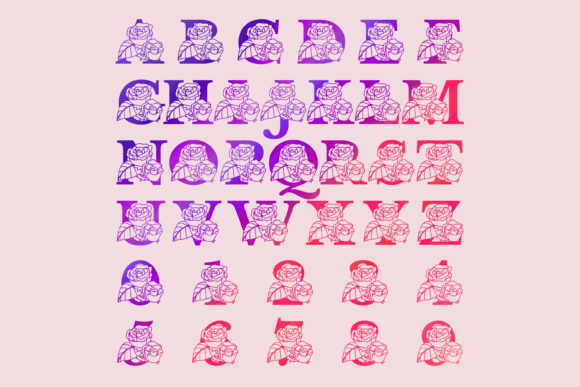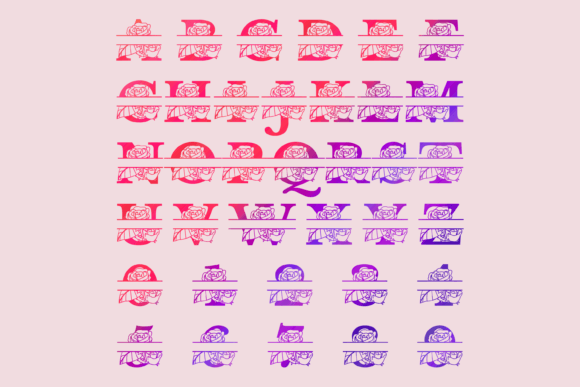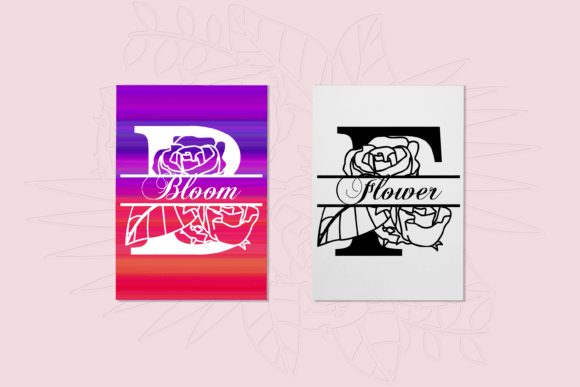
Adding a Touch of Elegance with the Blossom Split Font
As you sit at your crafting table, surrounded by scraps of paper, glue, and glitter, you’re on the hunt for the perfect finishing touch to bring your latest creation to life. You’ve got the design, the colors, and the materials, but something’s missing – a delicate flourish that will make your project truly special.
That’s where the Blossom Split Font comes in – an exquisite botanical decorative font that adds a touch of elegance to any project. With two styles to choose from, regular and split, this font is perfect for custom designs, DIY crafts, and any creation that requires a lovely touch. As a designer, you know the value of a well-chosen font in elevating your work, and the Blossom Split Font is an amazing choice for adding a unique and sophisticated flair to your projects.
- Unique Characteristics:
- Split font design with multiple layers for a unique aesthetic
- Hand-drawn and hand-painted style for a personal touch
Blossom Split Font Review
Overall, I think the Blossom Split Font is a beautiful addition to any design project. ✨ It has a playful, whimsical feel that’s perfect for spring or summer-themed designs, and its unique split design makes it stand out from other fonts.
The font’s versatility is one of its strongest points. It can be used for titles, headings, and even body text, making it a great choice for designers who want a single font to cover all their bases. ✨ The font’s open and airy feel also makes it easy to read, even at smaller sizes.
- Playful, whimsical feel that’s perfect for spring or summer-themed designs
- Unique split design that makes it stand out from other fonts
- Highly versatile and can be used for titles, headings, and body text
- Easy to read, even at smaller sizes
- May not be suitable for formal or professional designs
- Some characters may not be available in all languages
- Can be difficult to use in smaller sizes or with tight spacing
Overall, I would recommend the Blossom Split Font to designers who are looking for a fun and playful font to add some personality to their designs. However, it may not be the best choice for every project, and designers should be aware of its limitations. ⚠️
Tips for Getting the Most Out of the Blossom Split Font
The Blossom Split Font is perfect for creating whimsical and playful designs. To get the most out of it, try combining it with pastel colors and delicate illustrations.
Alternatives to Blossom Split Font
Blossom Split Font is a unique, elegant font that has gained popularity in recent years. However, there are several other fonts that can be used as alternatives, depending on the design requirements.
Great Vibes is a modern, elegant script font that is perfect for creating a luxurious and sophisticated look. It is ideal for use in wedding invitations, luxury branding, and high-end marketing materials. Great Vibes is similar to Blossom Split Font in terms of its elegant and refined feel, but it has a more modern and sleek design.
Carolyna Pro is a luxurious script font that is perfect for creating a high-end and sophisticated look. It is ideal for use in luxury branding, high-end marketing materials, and special occasion invitations. Carolyna Pro is similar to Blossom Split Font in terms of its elegant and refined feel, but it has a more dramatic and ornate design.
Alex Brush is a elegant script font that is perfect for creating a sophisticated and refined look. It is ideal for use in wedding invitations, luxury branding, and high-end marketing materials. Alex Brush is similar to Blossom Split Font in terms of its elegant and refined feel, but it has a more subtle and understated design.